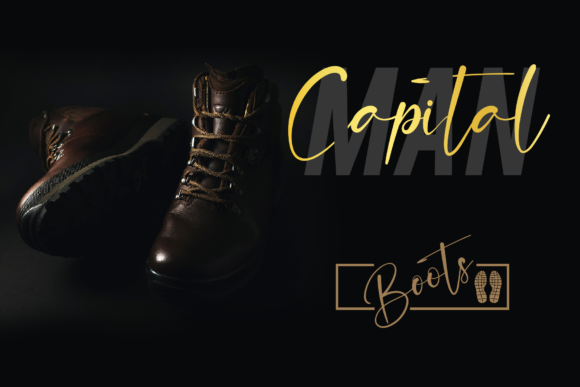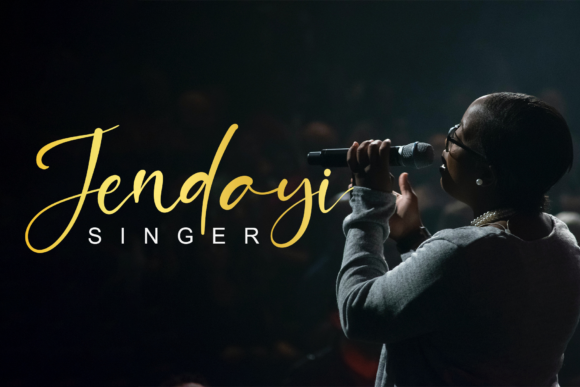
Double Signature Font
Double Signature is a modern and playful handwritten script font. It’s great for crafters and designers. This font is PUA encoded which means you can access all of the glyphs and swashes with ease.